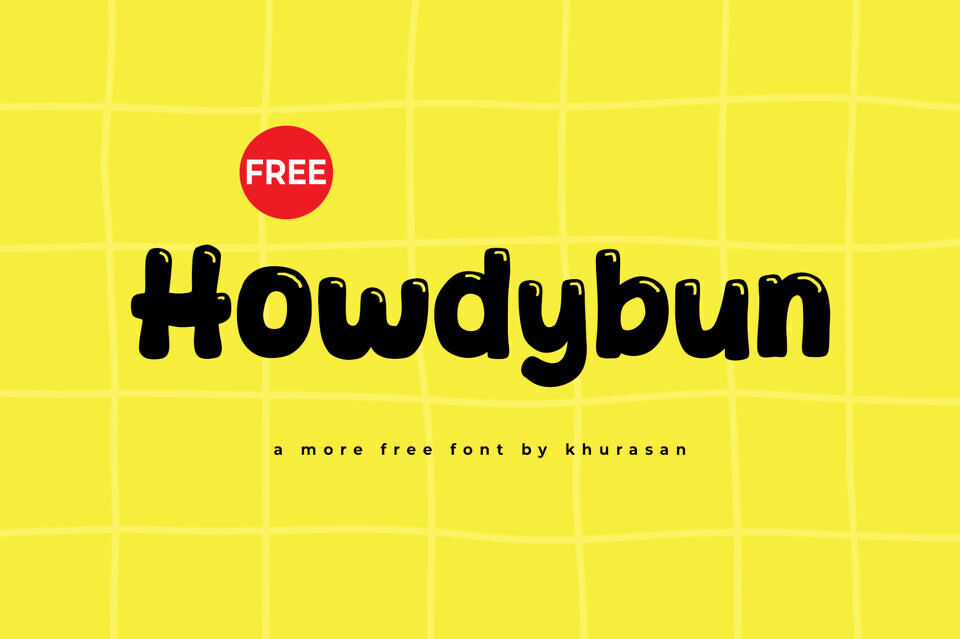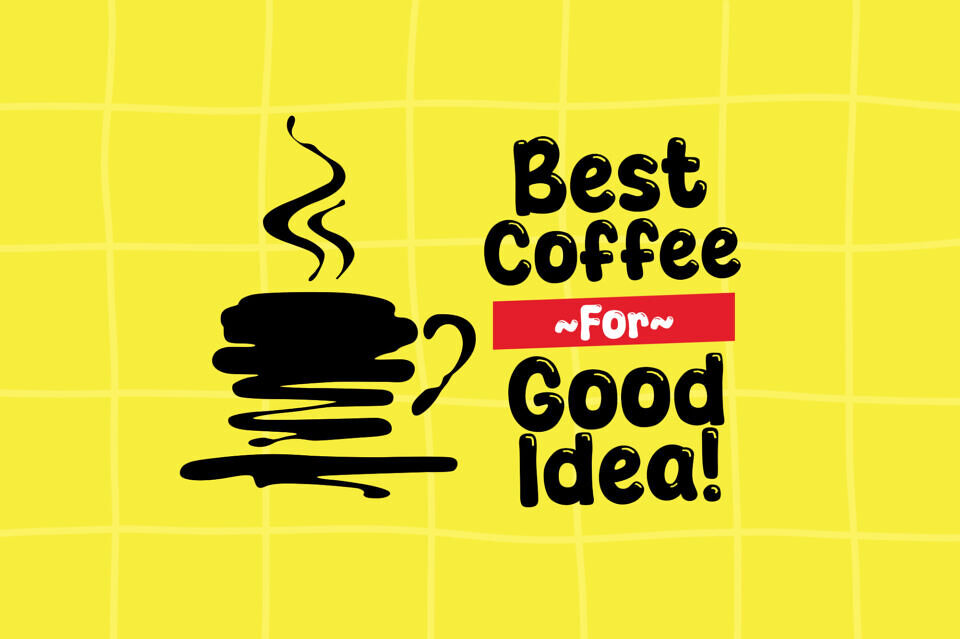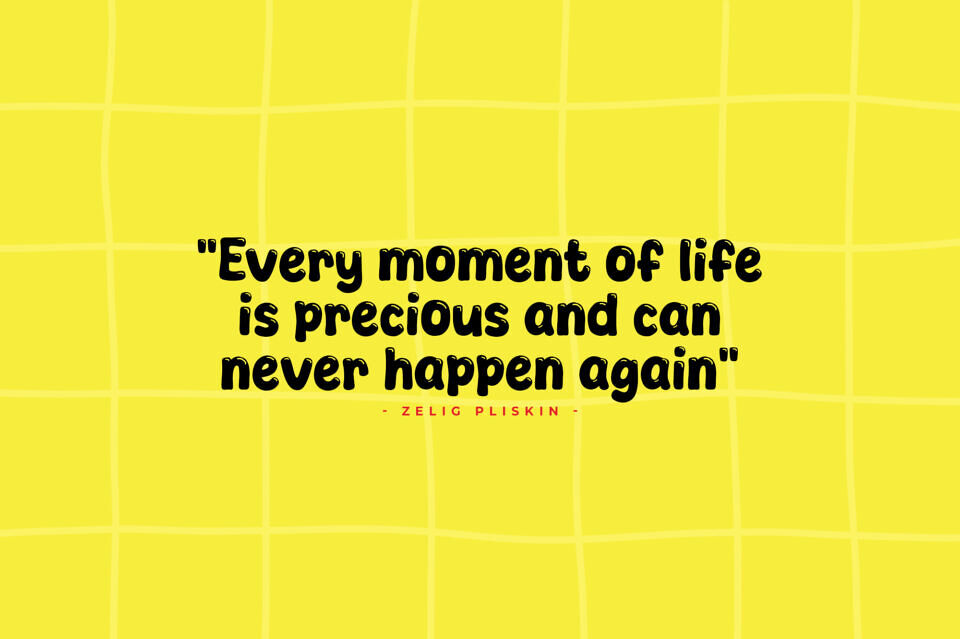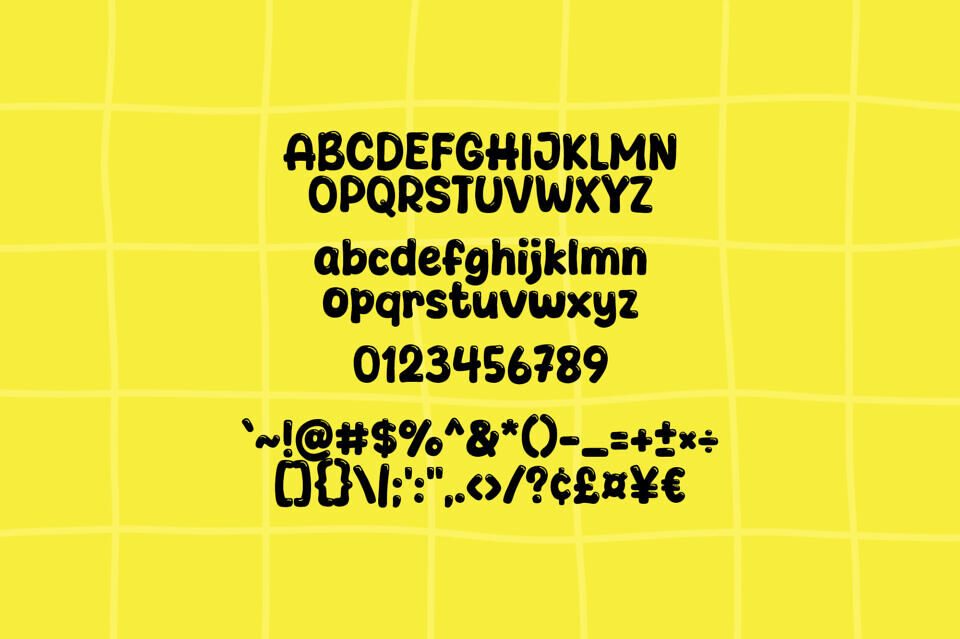
Howdybun Font
Howdybun is a modern and cute display font perfect for posters, logos, magazines, book covers, banners, and many more! Get this amazing font, and use it to create lovely designs.